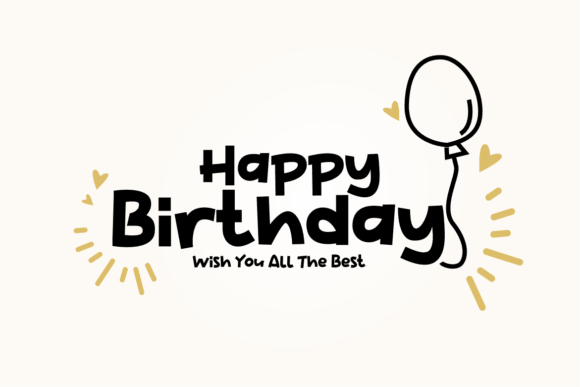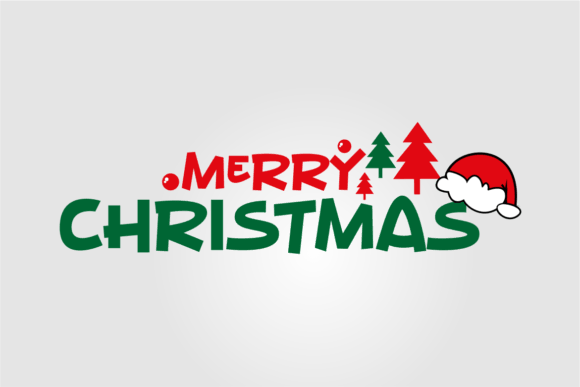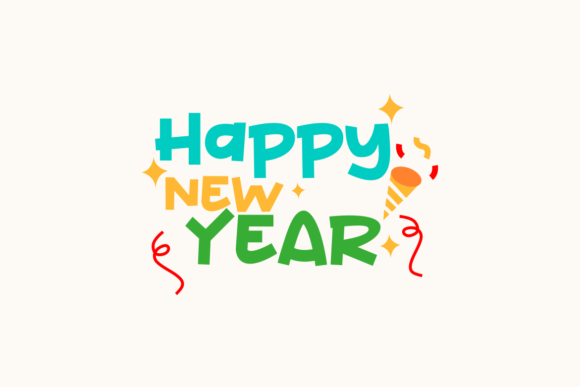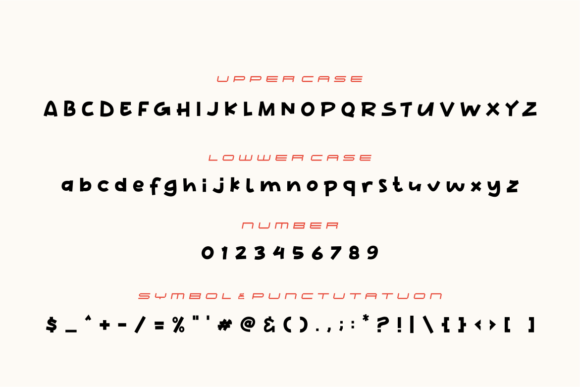
Unleashing the Fun with Geduk Rod Font
Have you ever been tasked with creating the perfect invitation for a birthday party, or designing festive decorations for the holiday season? You know the feeling of excitement and pressure to make it special. That’s exactly where Geduk Rod Font comes in – a display font designed specifically for fun events like birthdays, Christmas, and New Year. Its playful characters are sure to bring a smile to the faces of your guests and make your event even more memorable.
What makes Geduk Rod Font truly valuable for designers is its unique, carefree charm. The font’s slightly messy characters add a touch of personality to any design, making it perfect for projects that require a lighthearted and fun tone. Whether you’re a seasoned designer or just starting out, Geduk Rod Font is an excellent choice for adding some whimsy to your next project.
Geduk Rod Font Key Features
- Font Family: Geduk Rod Font is a sans-serif font family designed for display and body text.
- Unique Characteristics: Geduk Rod Font features a unique blend of modern and retro elements, with a distinctive rod-like structure that adds a touch of sophistication to any design.
- Font Weight: Available in various font weights, including light, regular, medium, bold, and extra bold, allowing designers to choose the perfect weight to suit their design needs.
Geduk Rod Font Review
I recently had the chance to work with the Geduk Rod font, and I’m excited to share my thoughts on this unique font.
- ✨ Unique character set: Geduk Rod font features a distinctive, hand-drawn feel that sets it apart from other fonts. Its quirks and imperfections make it perfect for projects that need a personal touch.
- ✨ Strong legibility: Despite its irregularities, the font is surprisingly easy to read, especially in larger font sizes. This makes it suitable for headings and titles.
- ✨ Versatility: Geduk Rod font can be used for a wide range of projects, from logos and branding to editorial and design work.
- ⚠️ Limited font sizes: While the font is legible in larger sizes, it can become difficult to read in smaller font sizes. This might limit its use in body text or captions.
- ⚠️ Lack of international support: Geduk Rod font may not include the full range of characters required for languages other than English. This could be a limitation for global projects.
Geduk Rod font is a bold, eye-catching choice that’s perfect for projects that need a personal touch. While it has its limitations, its unique character set and strong legibility make it a valuable addition to any designer’s toolkit. With careful use, this font can add a touch of whimsy and personality to even the most mundane designs.
Tip: Use the Geduk Rod Font for bold headings or titles to add a touch of uniqueness to your design.
Tip: Use the Geduk Rod Font for custom illustrations or graphics to add a distinctive touch.
Tip: Use the Geduk Rod Font for titles or headings to add a touch of personality to your presentation or document.
The Geduk Rod Font is ideal for:
- Designing unique and eye-catching titles or headings.
- Creating custom illustrations or graphics.
- Adding a touch of personality to presentations or documents.